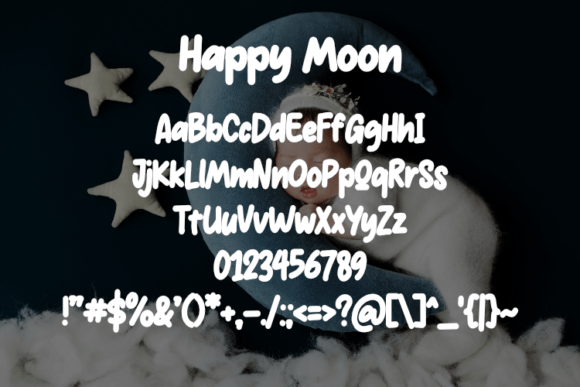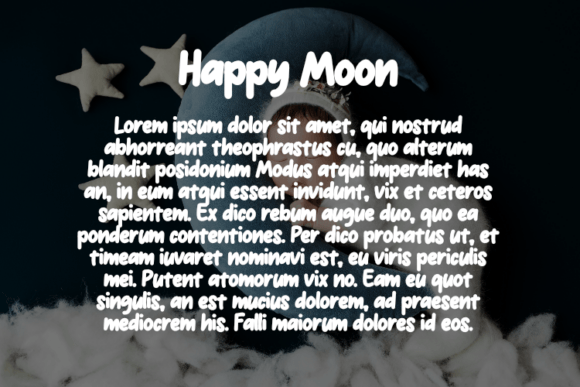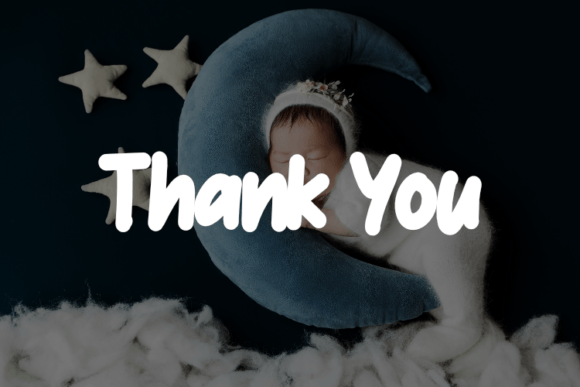
Introducing Happy Moon Font: The Ultimate Design Companion for Joyful Creations
Are you tired of using the same old fonts for your designs? Look no further! Happy Moon Font is here to revolutionize your creative process with its infectious charm and versatility. This delightful font is perfect for designers, crafters, and artists who want to add a lively touch to their clothing and product designs.
The Joyful Charm of Happy Moon Font
Happy Moon Font is designed to bring a smile to your face and a spring to your designs. Its unique and playful style is sure to capture the attention of your audience and leave a lasting impression. Whether you’re creating custom tees, mugs, or any other product, Happy Moon Font is the perfect choice to add a touch of whimsy and fun.
Streamlining Creativity Across All Information Technology Mediums
Happy Moon Font is designed to work effortlessly across all information technology mediums. Whether you’re creating digital designs or printing physical products, this font ensures that your designs look amazing everywhere. From social media graphics to billboards, Happy Moon Font is the perfect choice for any design project.
Happy Moon Font is a dream come true for designers and crafters who want to add a personal touch to their creations. With its versatile functionality and warmth, this font is perfect for a wide range of design applications, including:
- Custom tees and apparel
- Mugs and ceramics
- Stationery and greeting cards
- Signs and posters
- Digital graphics and animations
A Delightful Add-on to Any Design Toolkit
Happy Moon Font is more than just a font – it’s a design companion that can elevate your creations to the next level. Its unique style and versatility make it a valuable addition to any design toolkit. Whether you’re a professional designer or a hobbyist crafter, Happy Moon Font is sure to become a favorite in your collection.
Key Features of Happy Moon Font
- Unique and playful style
- Versatile functionality
- Warm and inviting style
- Perfect for a wide range of design applications
Get Ready to Shine with Happy Moon Font